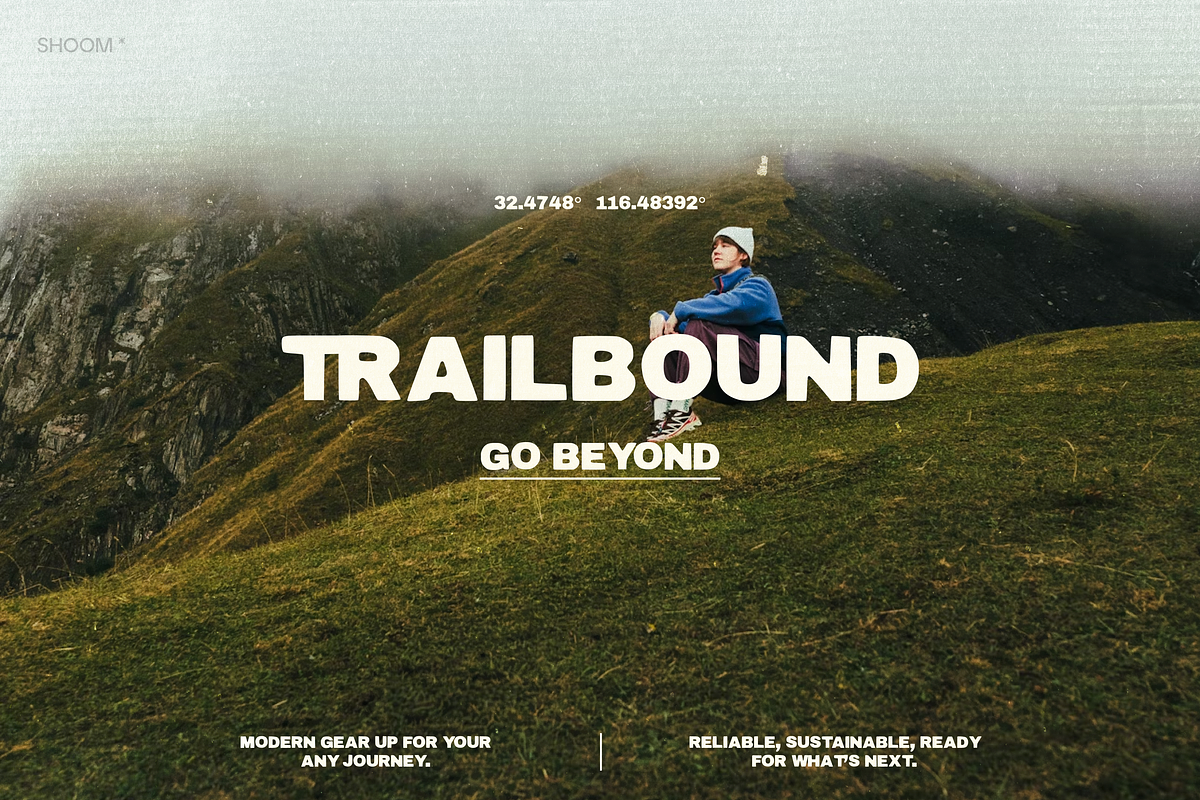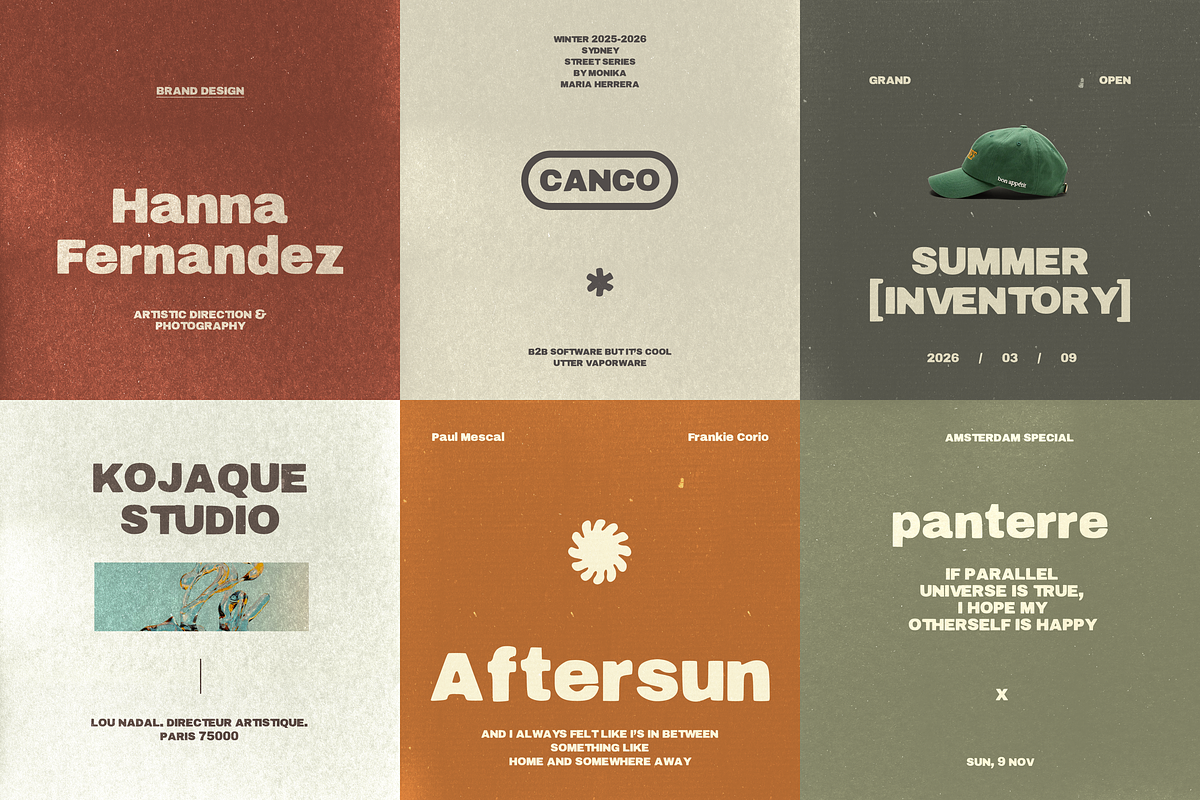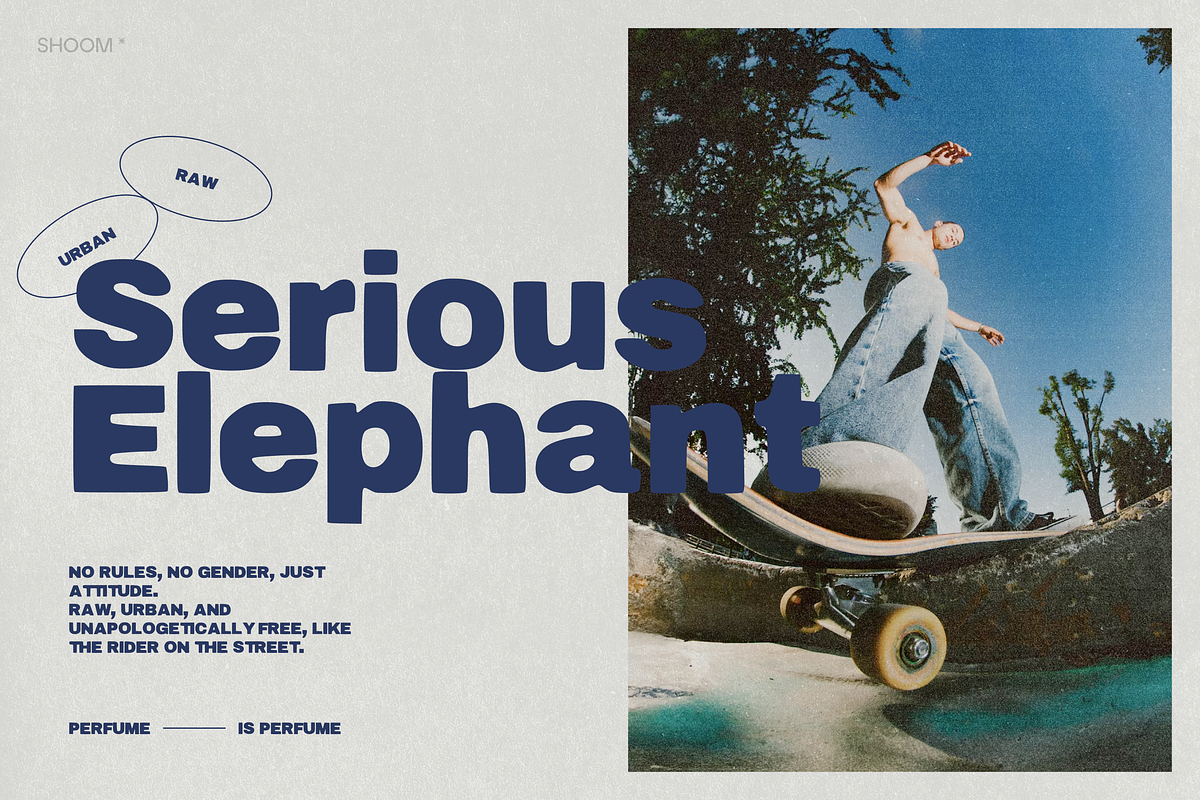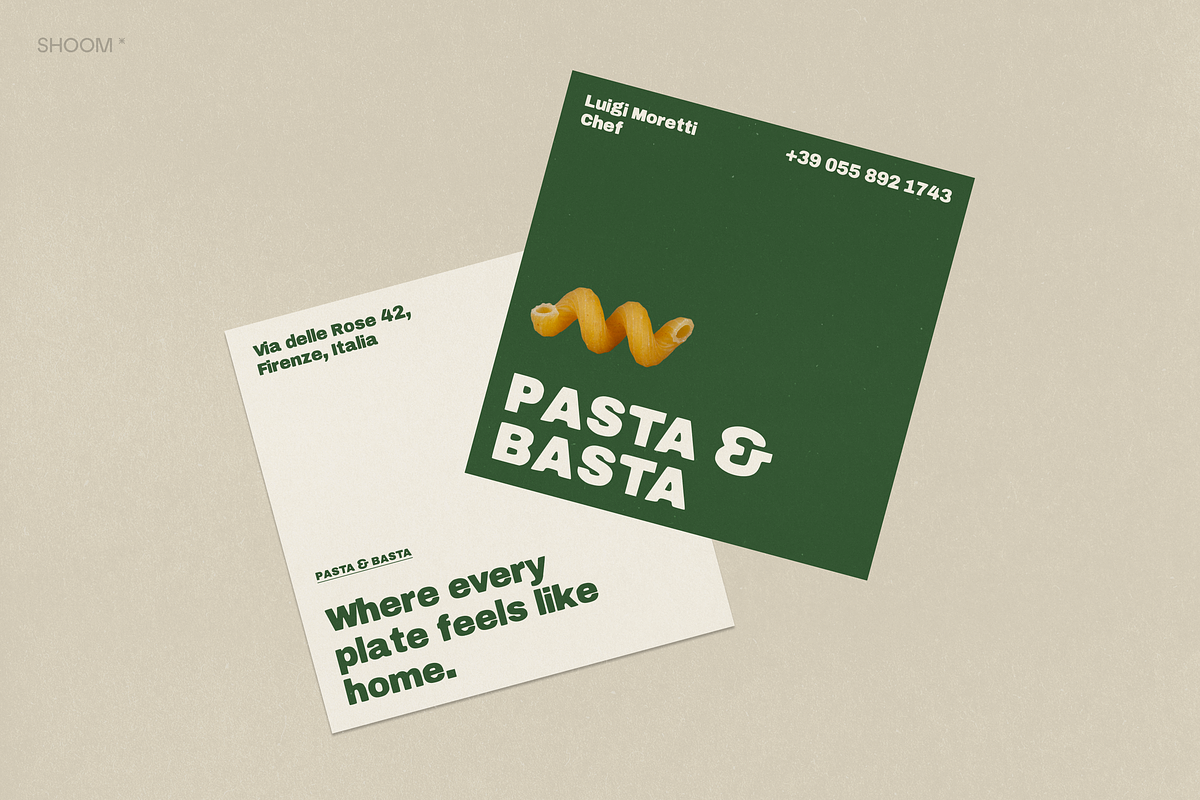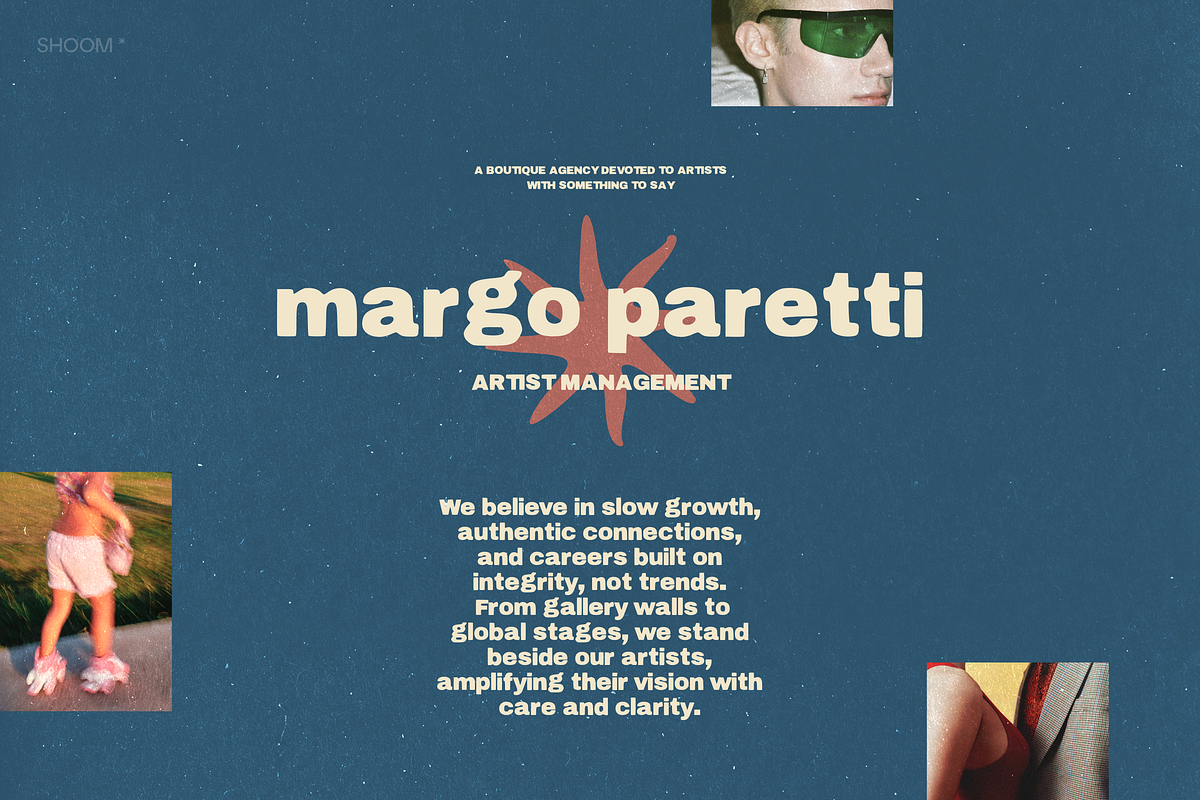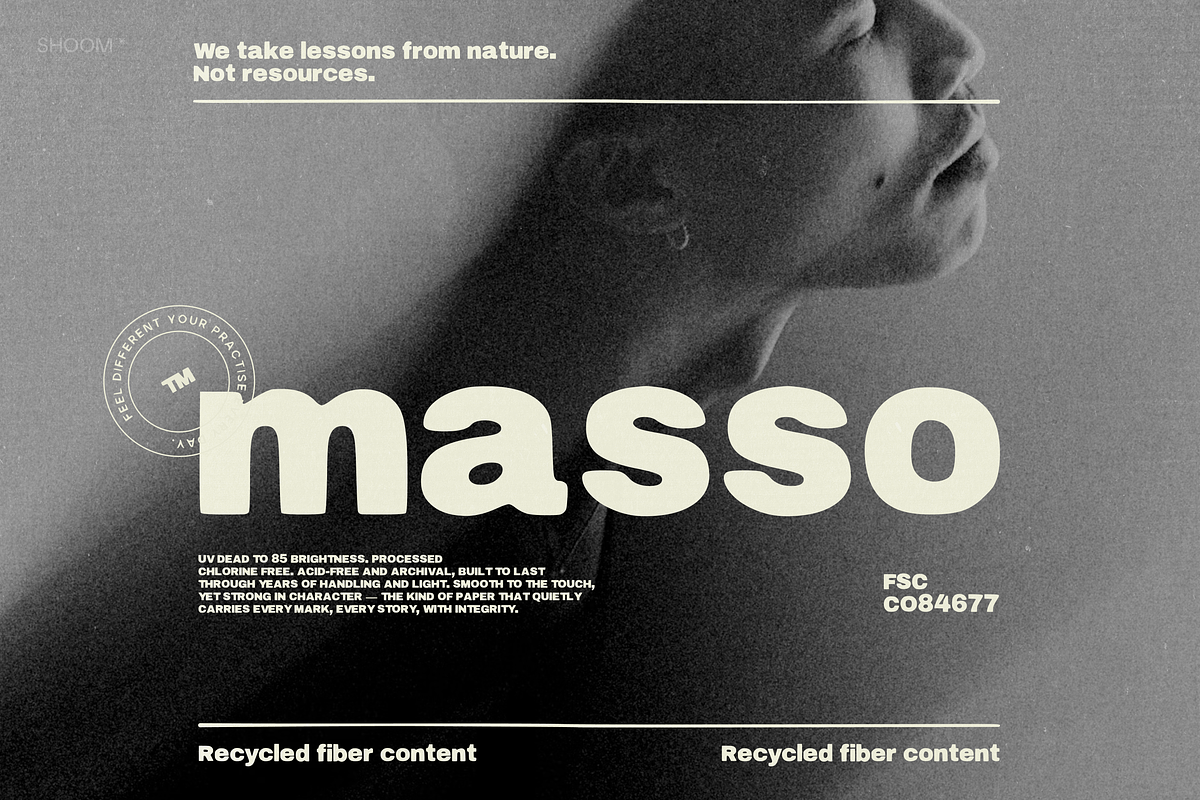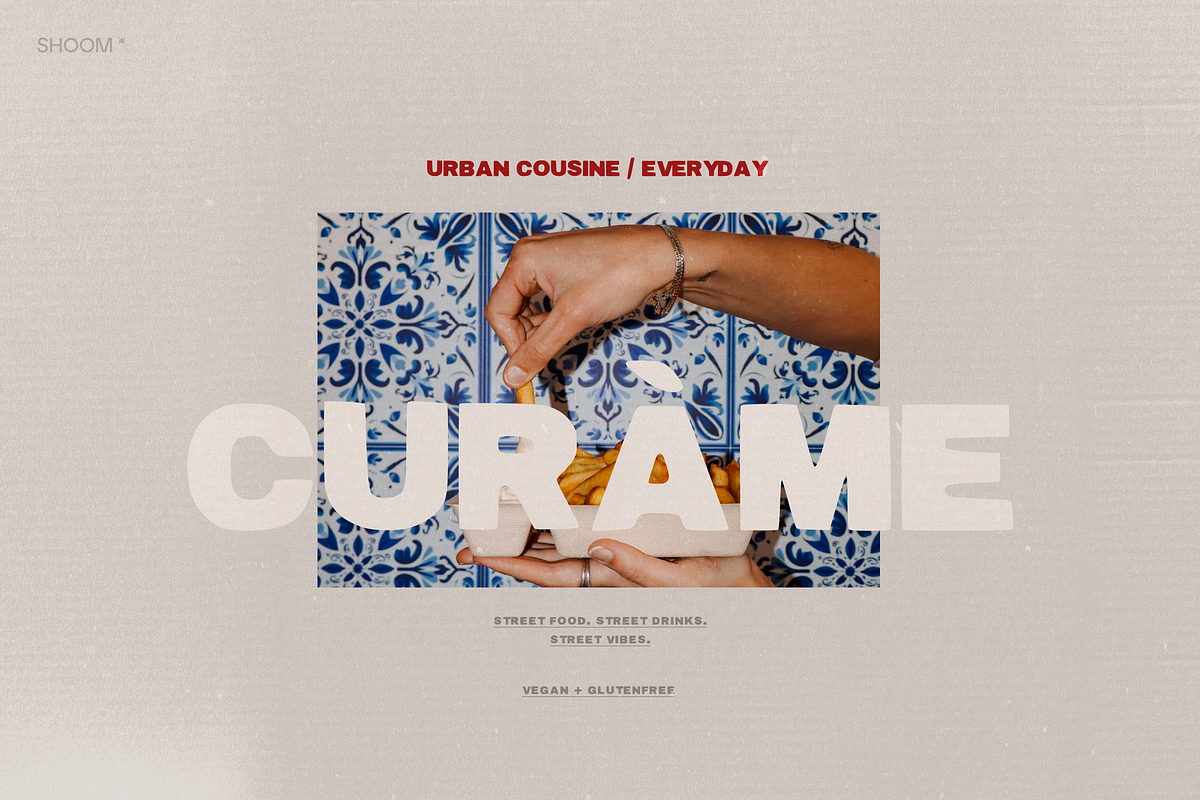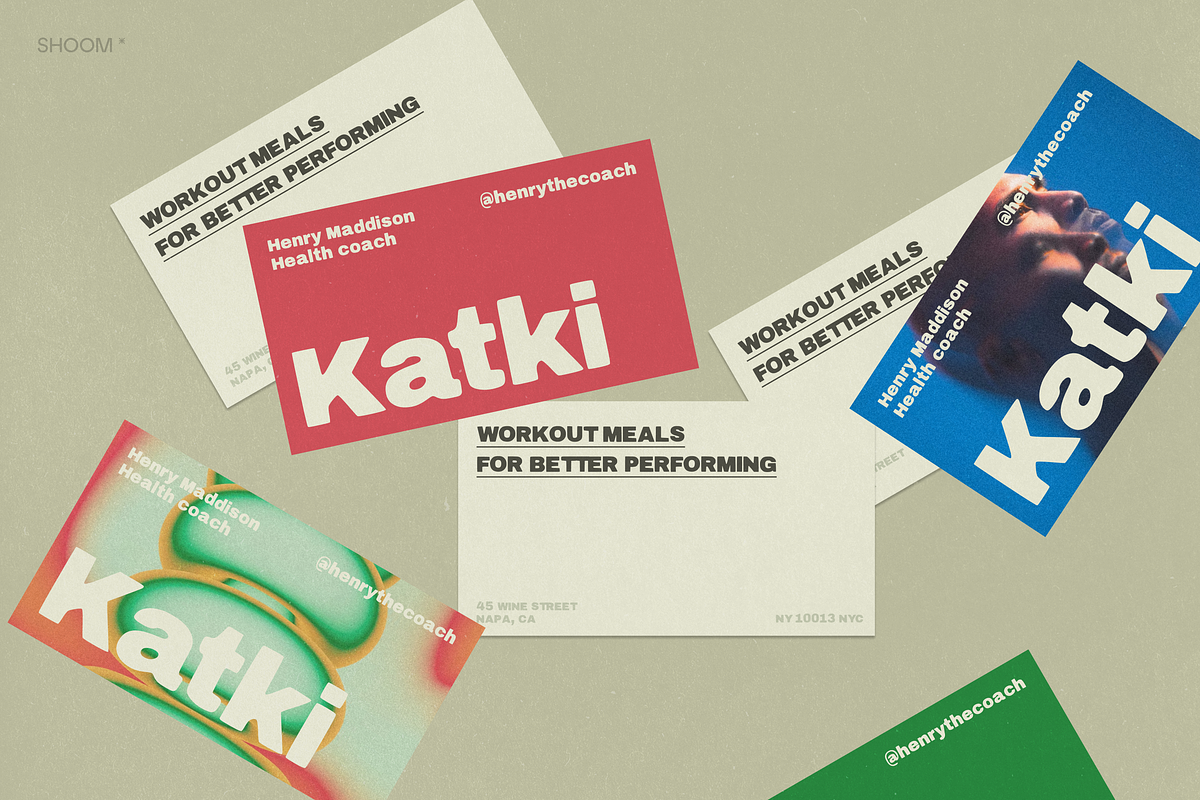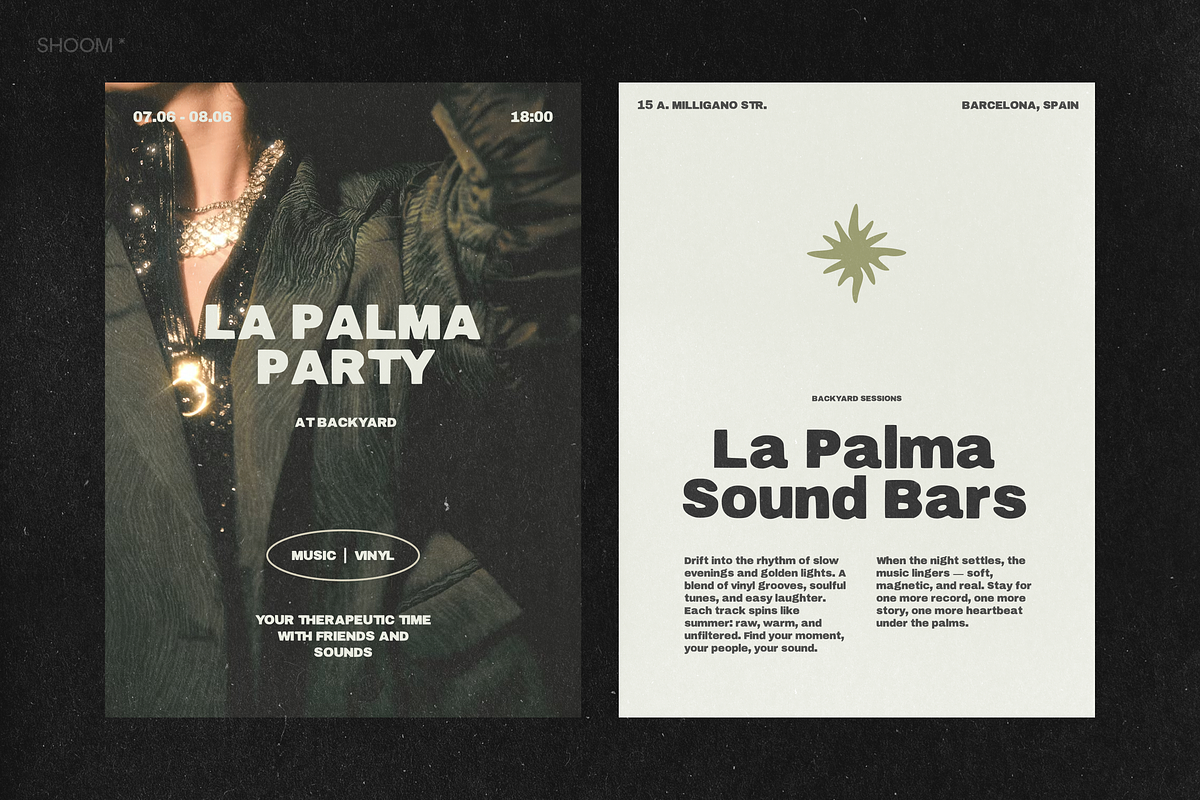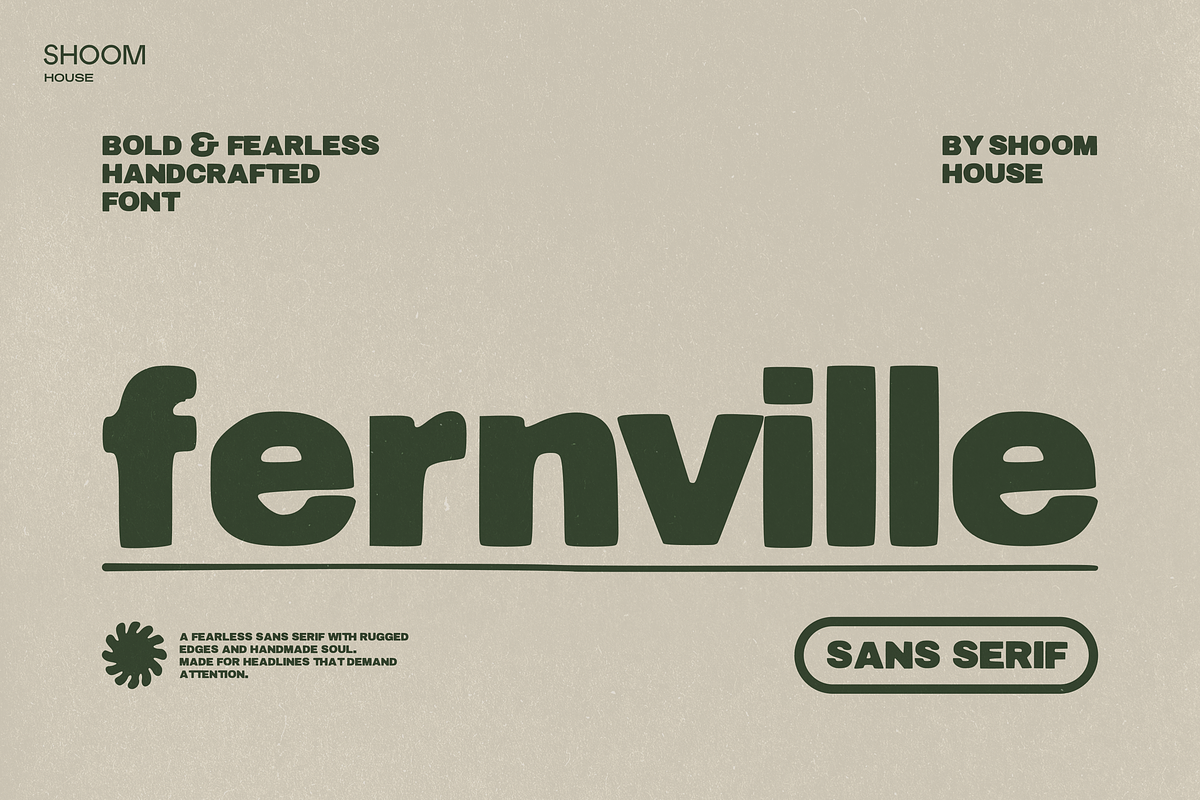
Fernville: Bold Sans Serif
✽ Bold, rough & real.
This handwritten sans doesn’t try to be perfect, and that’s exactly its charm. With raw edges and confident strokes, it feels like marker on paper, full of texture and rhythm. Each letter carries a bit of human touch: slightly uneven, deeply alive.
Use it when you want your design to feel honest and handcrafted: logos, packaging, posters, quotes. It’s bold but friendly, modern but warm. A font that speaks with a voice you can almost hear.
✽ FONT FEATURES
- Uppercase & lowercase English alphabet
- Numbers & punctuation symbols